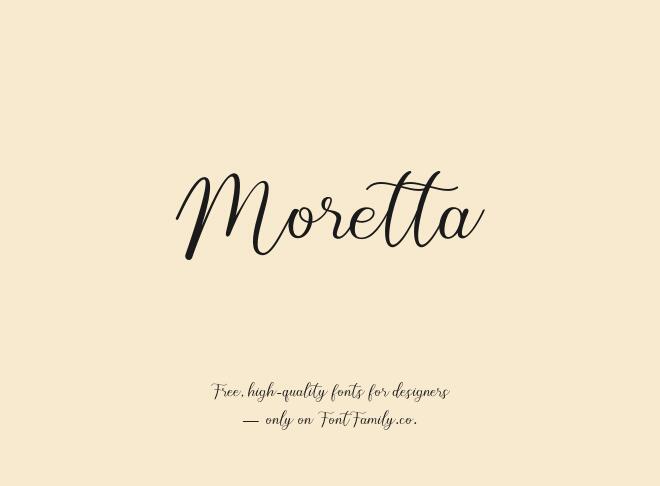
Moretta Font
Moretta Font is a stylish handwritten script font with an elegant charm. Its organic texture and fluid strokes offer a unique blend of sophistication and informality, making it a perfect choice for a variety of design projects. Moretta Font stands out in logo design, branding, wedding invitations, greeting cards, and any design work that requires a personal touch. It is reminiscent of classic script fonts but with a modern twist. The font's versatile and unique style makes it a fantastic choice for designers looking for something different. Its free availability for personal use adds even more value, making Moretta Font a must-try for any creative project.